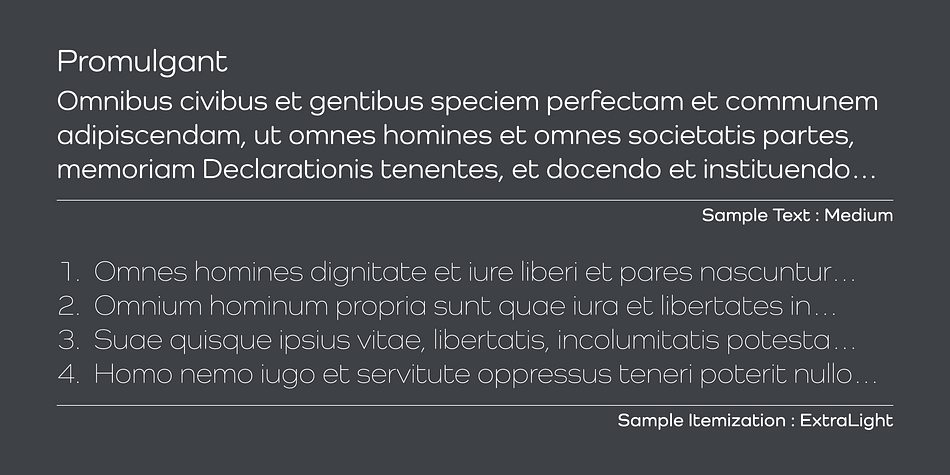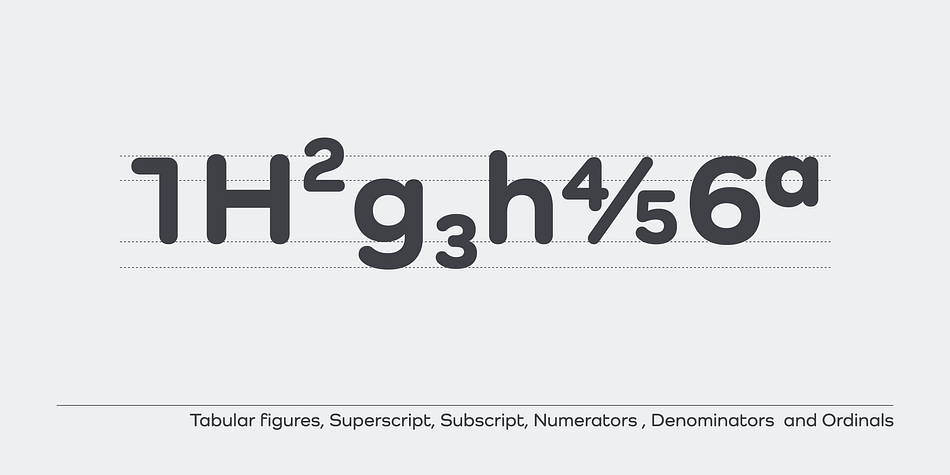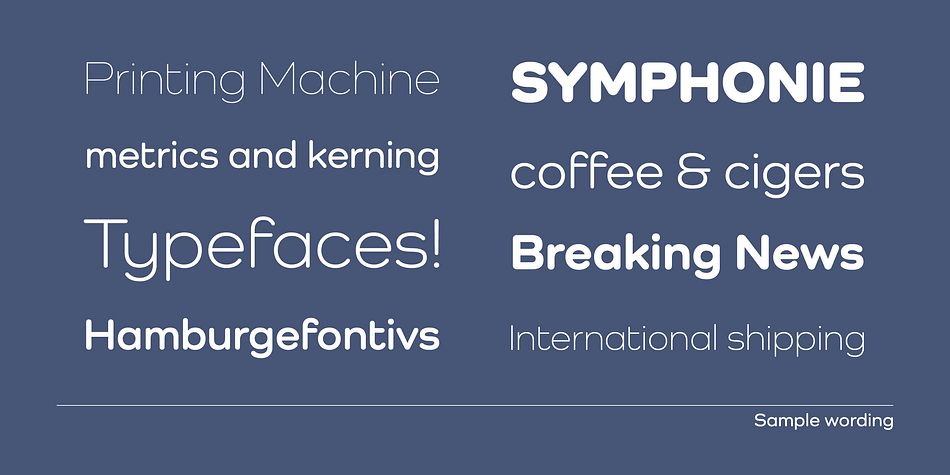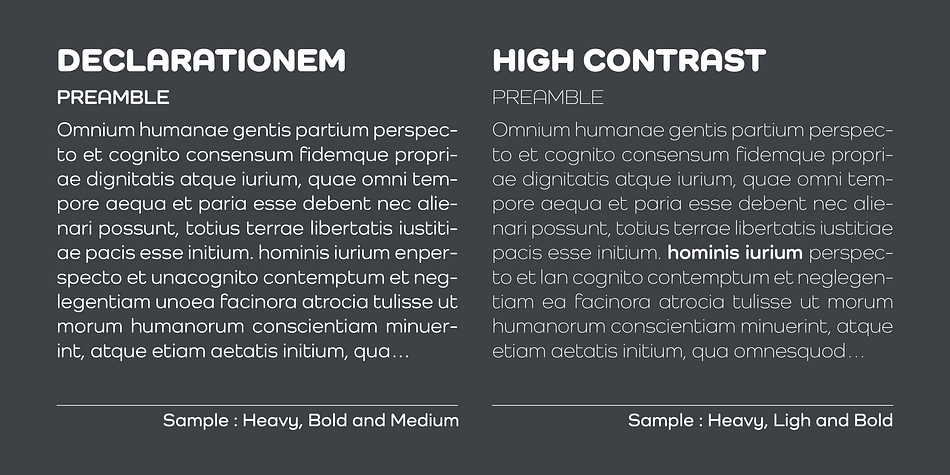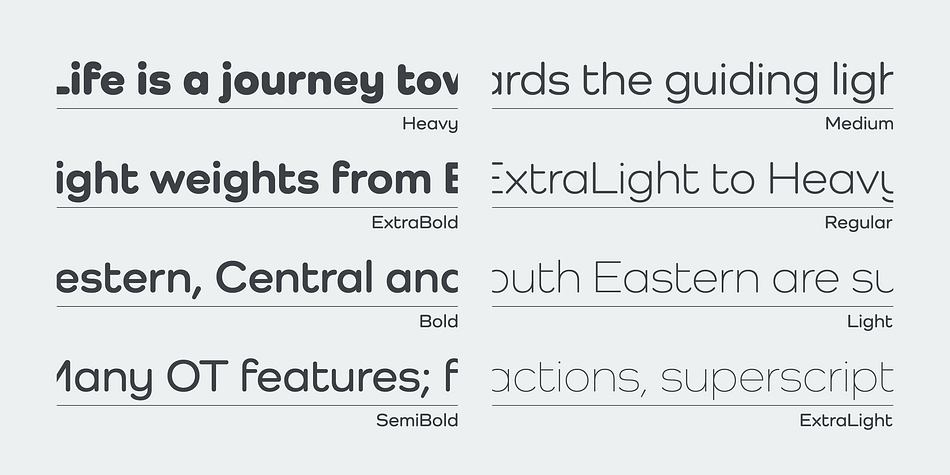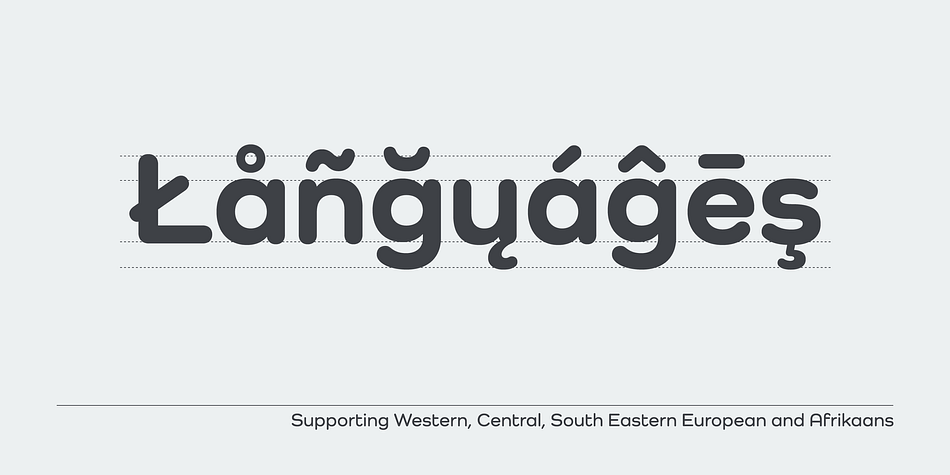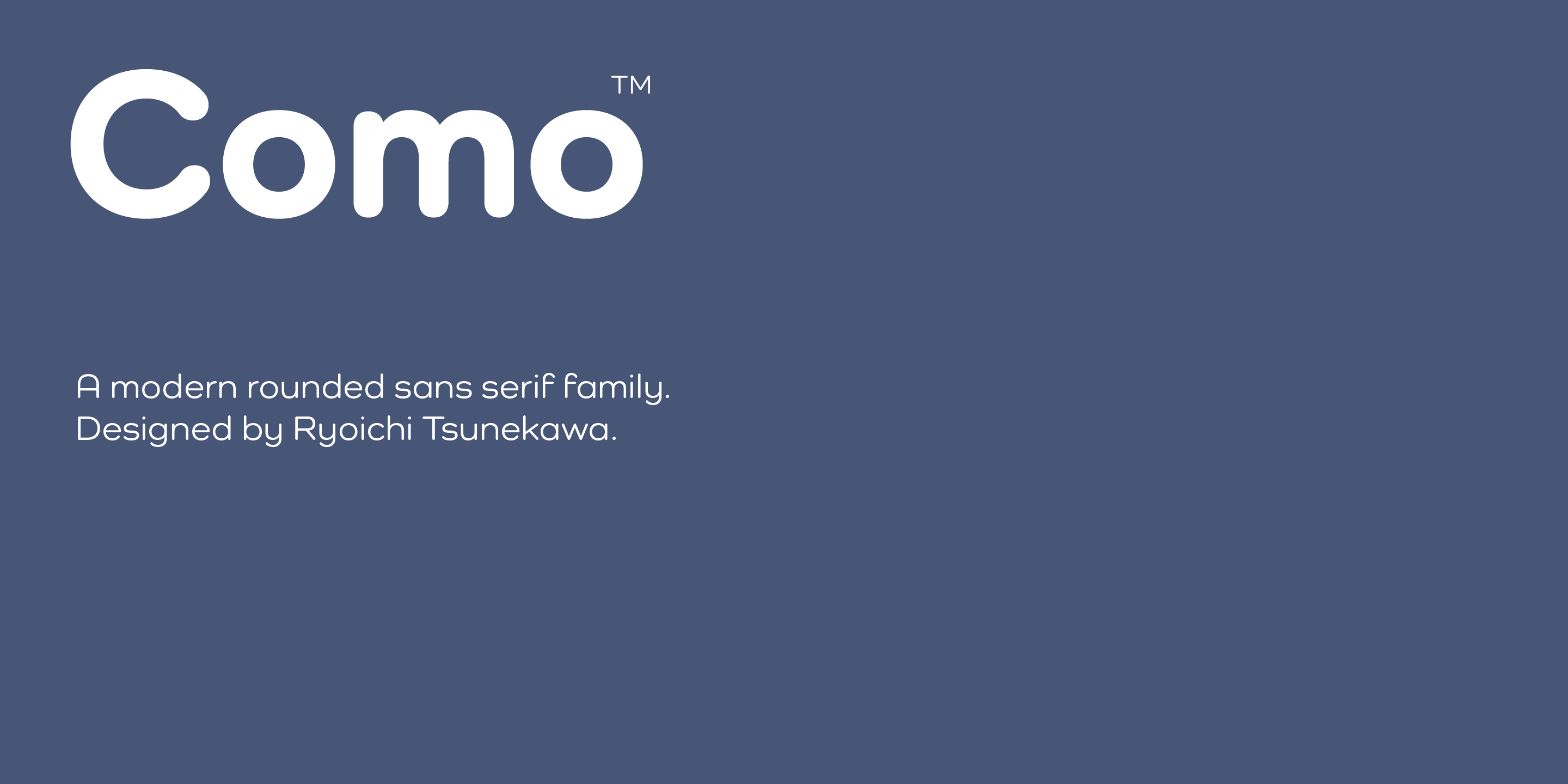
Como is a sans serif and kids font family. This typeface has eight styles and was published by Dharma Type.
Como is a modern rounded sans-serif family designed by Ryoichi Tsunekawa and the whole family consists of 8 weights from ExtraLight to Heavy.
The basic skeleton of their letterform was designed geometrically and their ends were rounded out. The sophisticated geometric design gives them universality, neutrality and sense of unity for the use in all media, all purposes. And their large x-heights makes this family legible and readable. While at the same time, the rounded ends characterizes this family and it makes them very friendly and natural. This rounded feature will also accentuate your design work moderately.
Como supports almost all European languages: Western, Central, South Eastern Europeans and afrikaans. And superior figures, inferior figures, denominators, numerators and fraction can be accessed by using OpenType features.